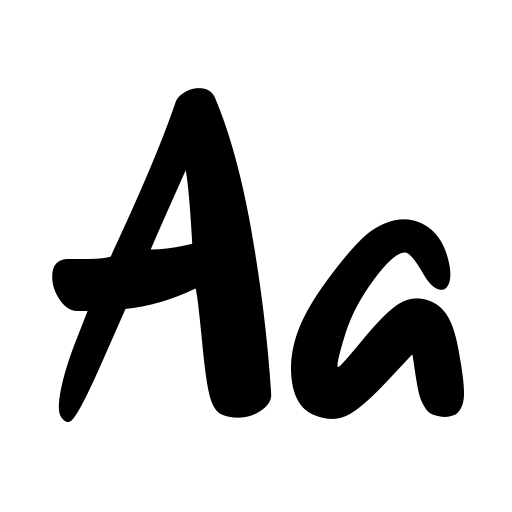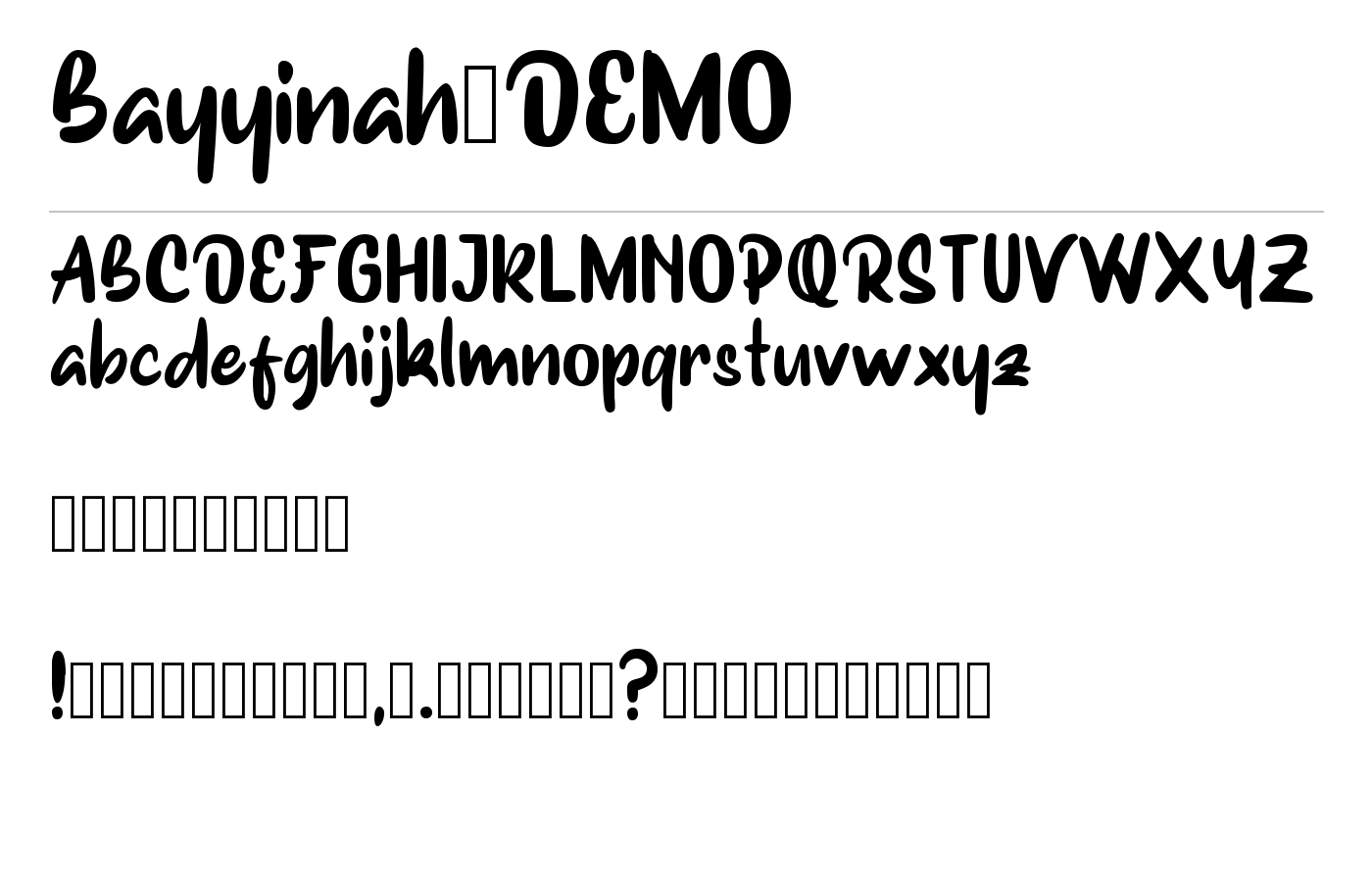
Bayyinah-DEMO is a playful and casual script-style font with rounded, bold strokes and a friendly, hand-drawn feel. Its tall x-height and varied letterforms make it perfect for inviting headlines, logos, or creative projects where a warm, approachable personality is desired. This font works well for informal branding, posters, and social media content looking to convey energy and friendliness.
Bayyinah-DEMO Font
About Bayyinah-DEMO Font